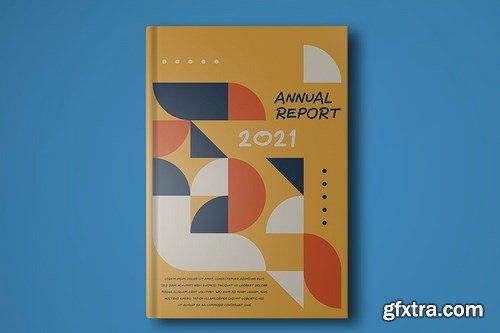
Whenever you need a business explainer presentation, you will need this one. the shape is so business, and will enhance your presentation to the next level.